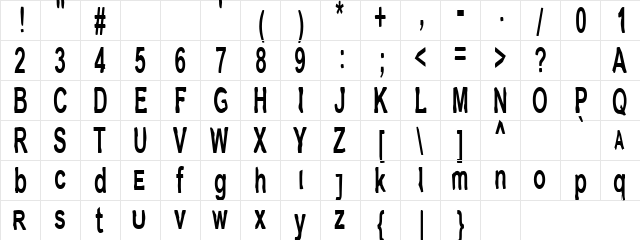
JetPak Juice Font Preview
JetPak Juice
JetPak Juice Font Details
Design Context for JetPak Typeface
JetPak offers clean, dependable letterforms without strong stylistic allegiance, making it a practical choice for designers who need flexibility.
Pro Tip: Use JetPak in both headline and body roles to test its range before committing to a single application.